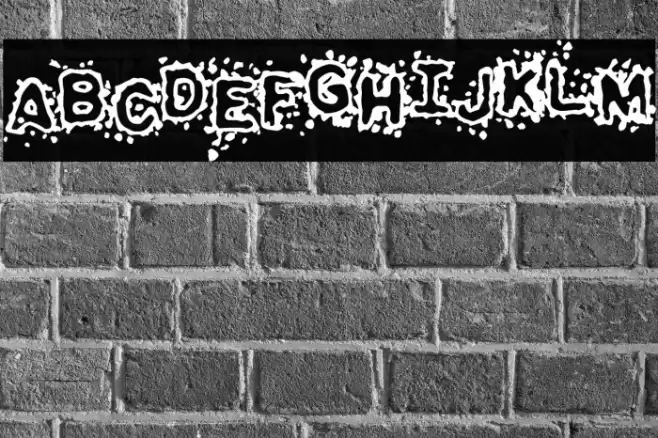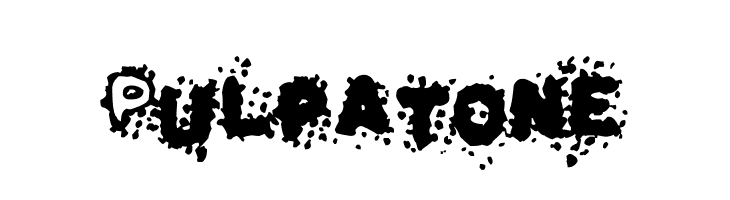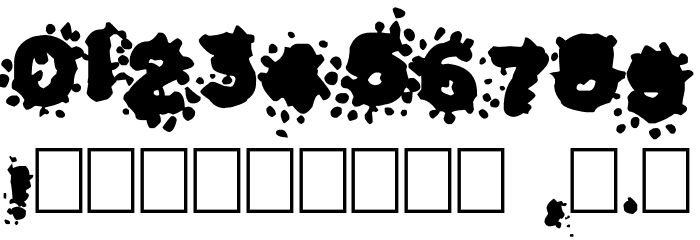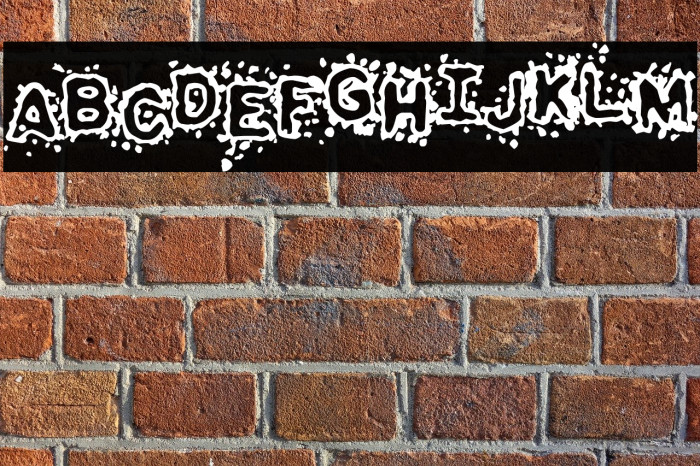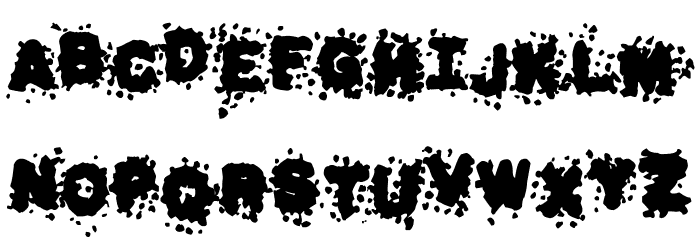
Pulpatone Font
Pulpatone Description
This font features a playful and chaotic design with a splatter effect surrounding each character, giving it a dynamic and energetic appearance. The letters are bold and irregular, with a hand-drawn feel that adds to its whimsical nature. The uppercase and lowercase letters maintain a consistent style, while the numbers and special characters follow the same splattered theme. This font is ideal for projects that require a fun and eye-catching look, such as children's book covers, party invitations, or creative branding materials.
A playful, splatter-themed font with a bold and energetic style from Distorted Eroded fonts.